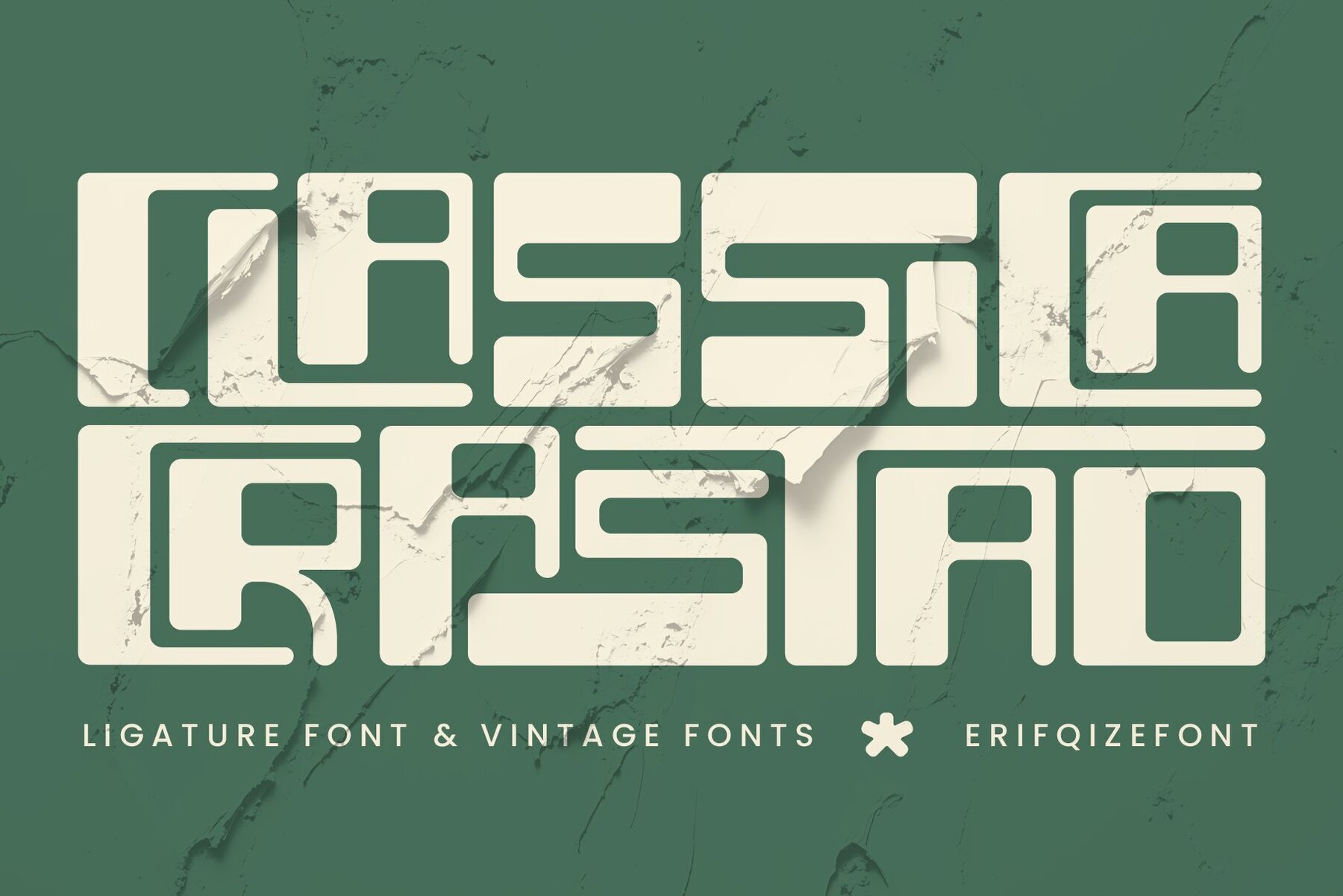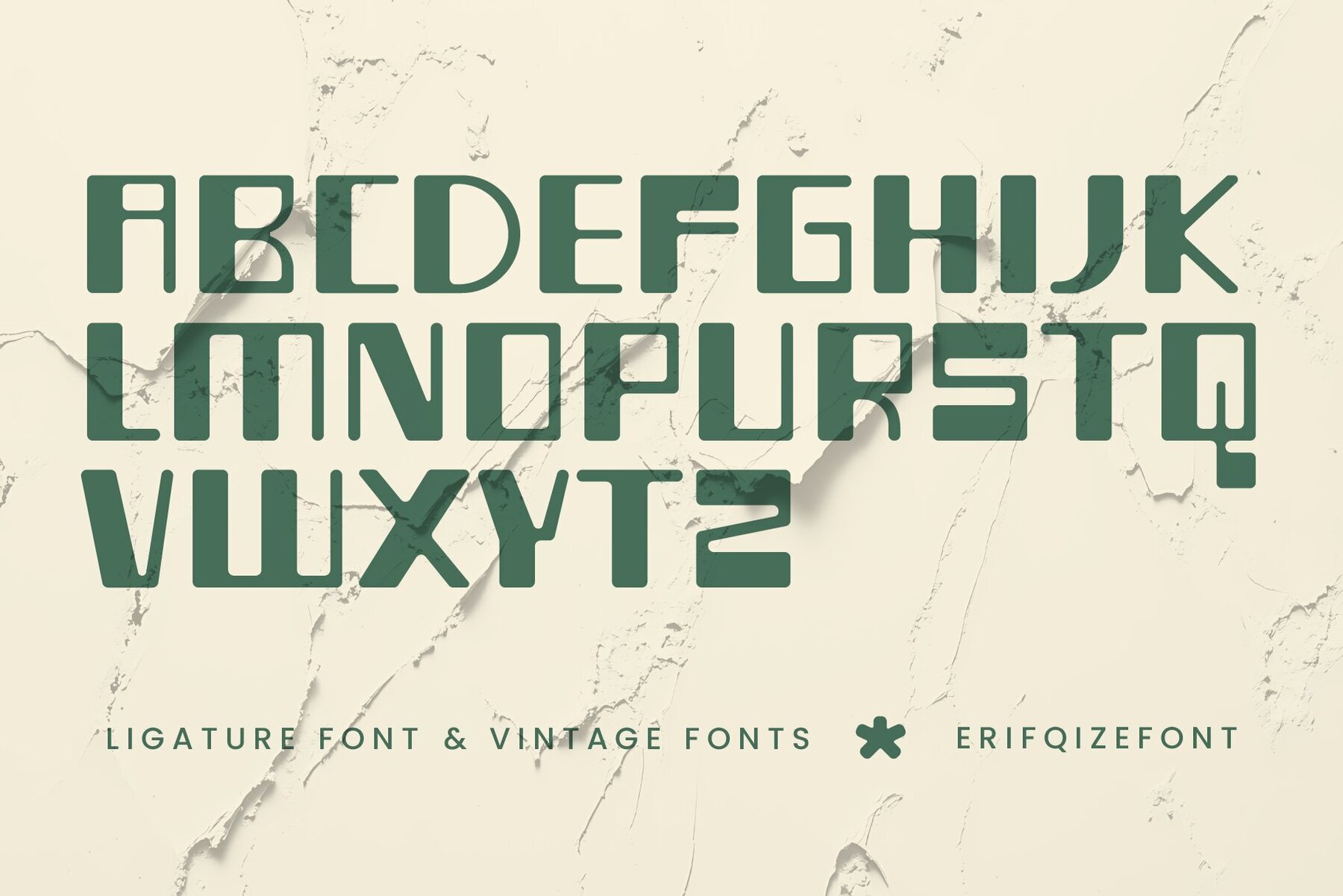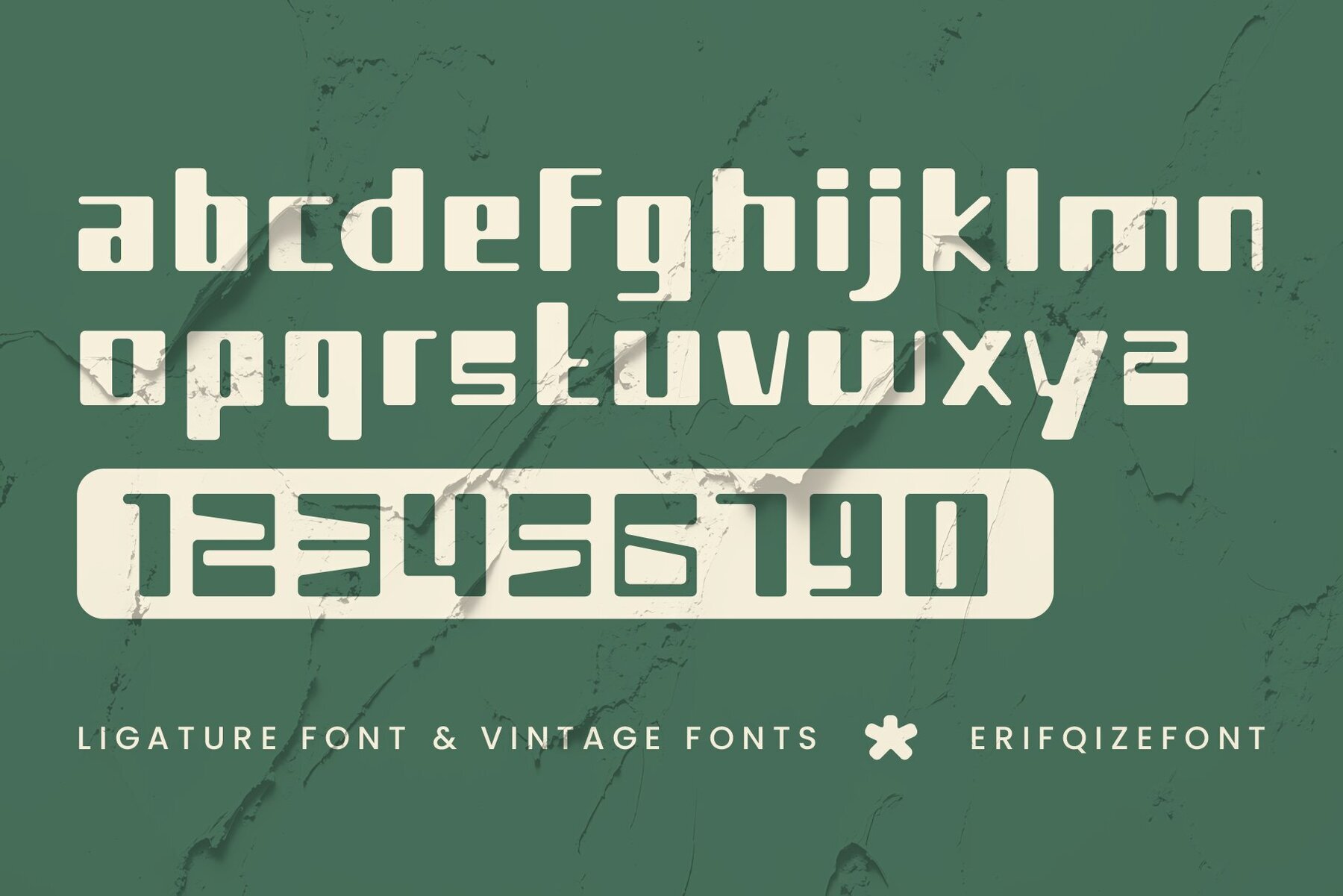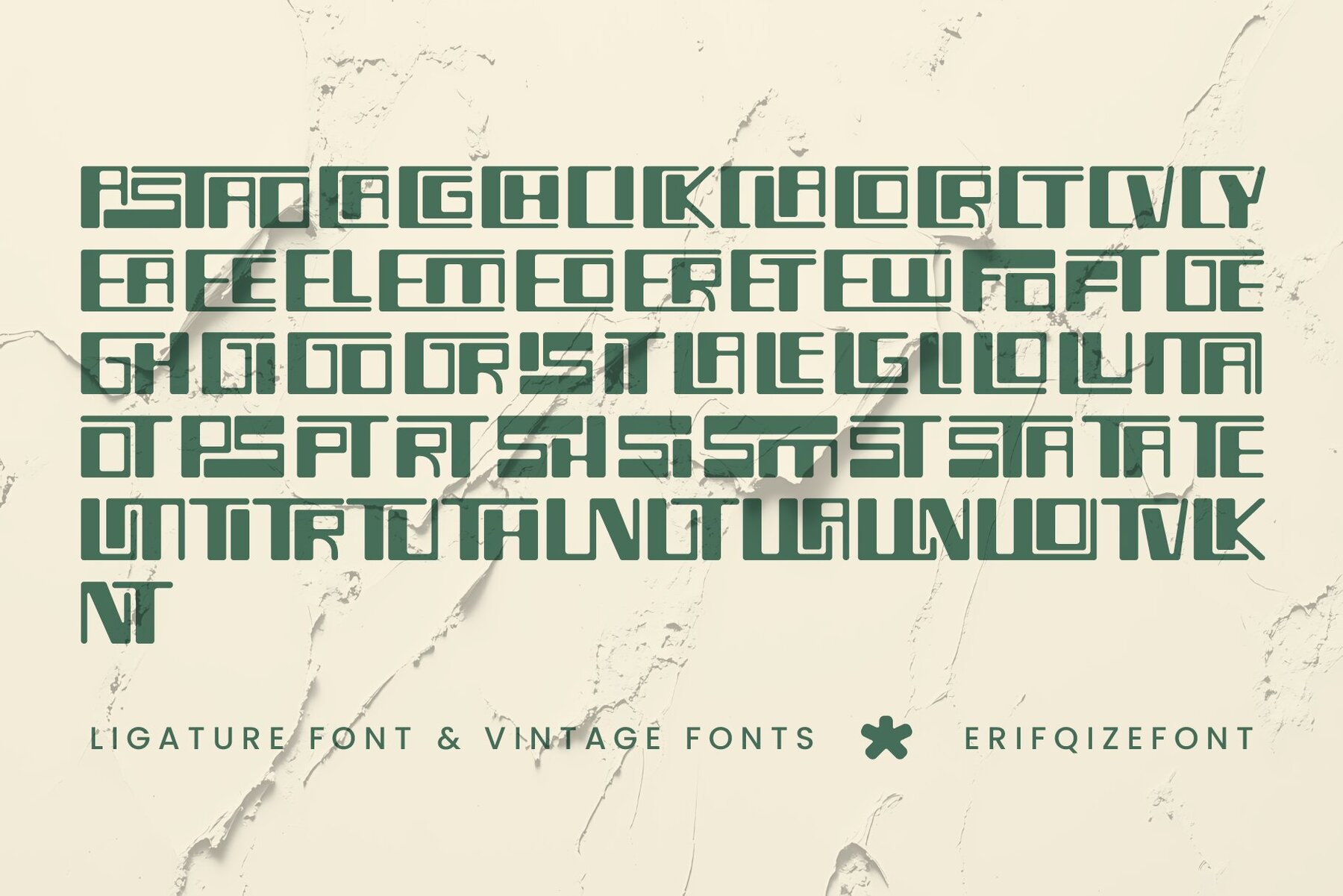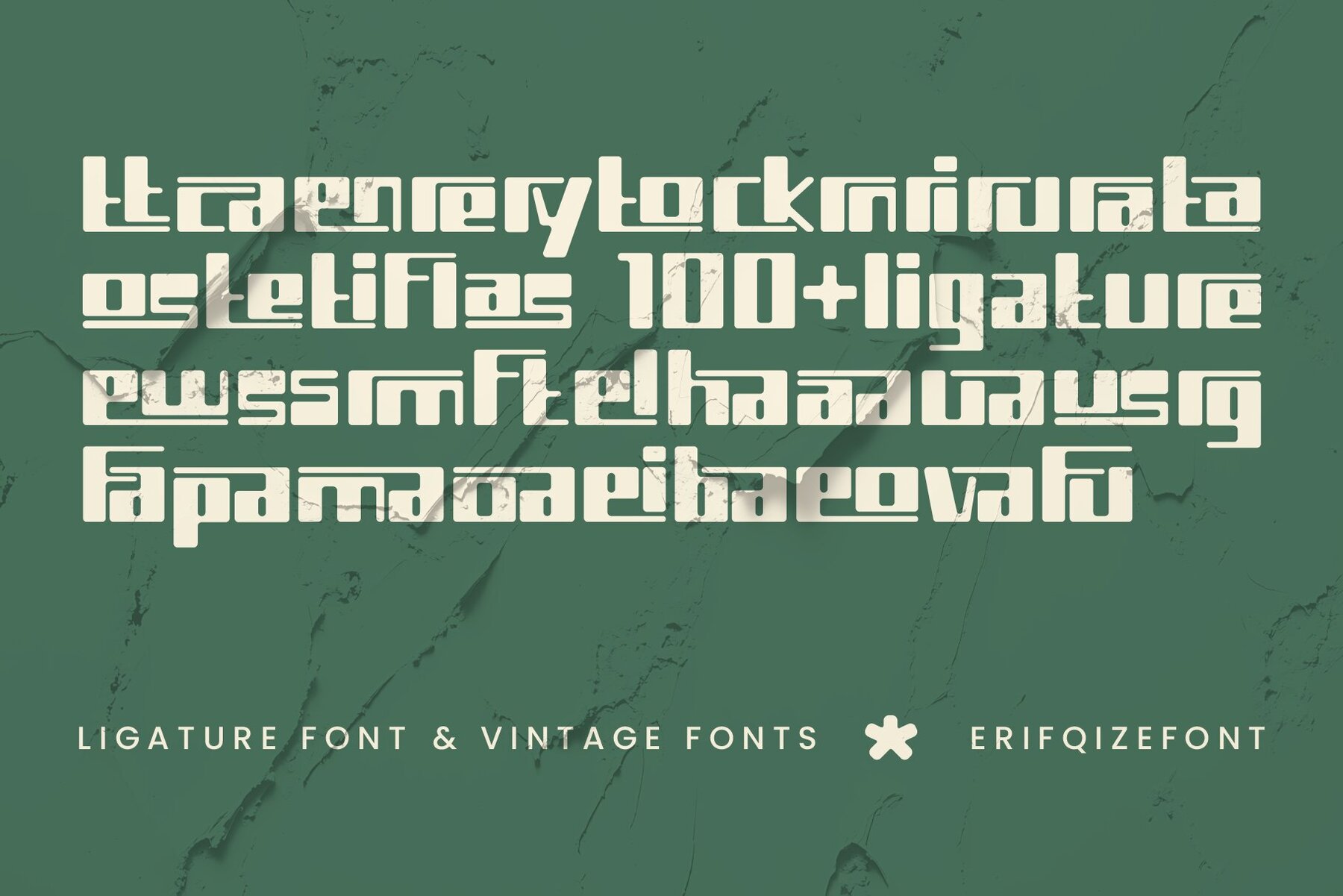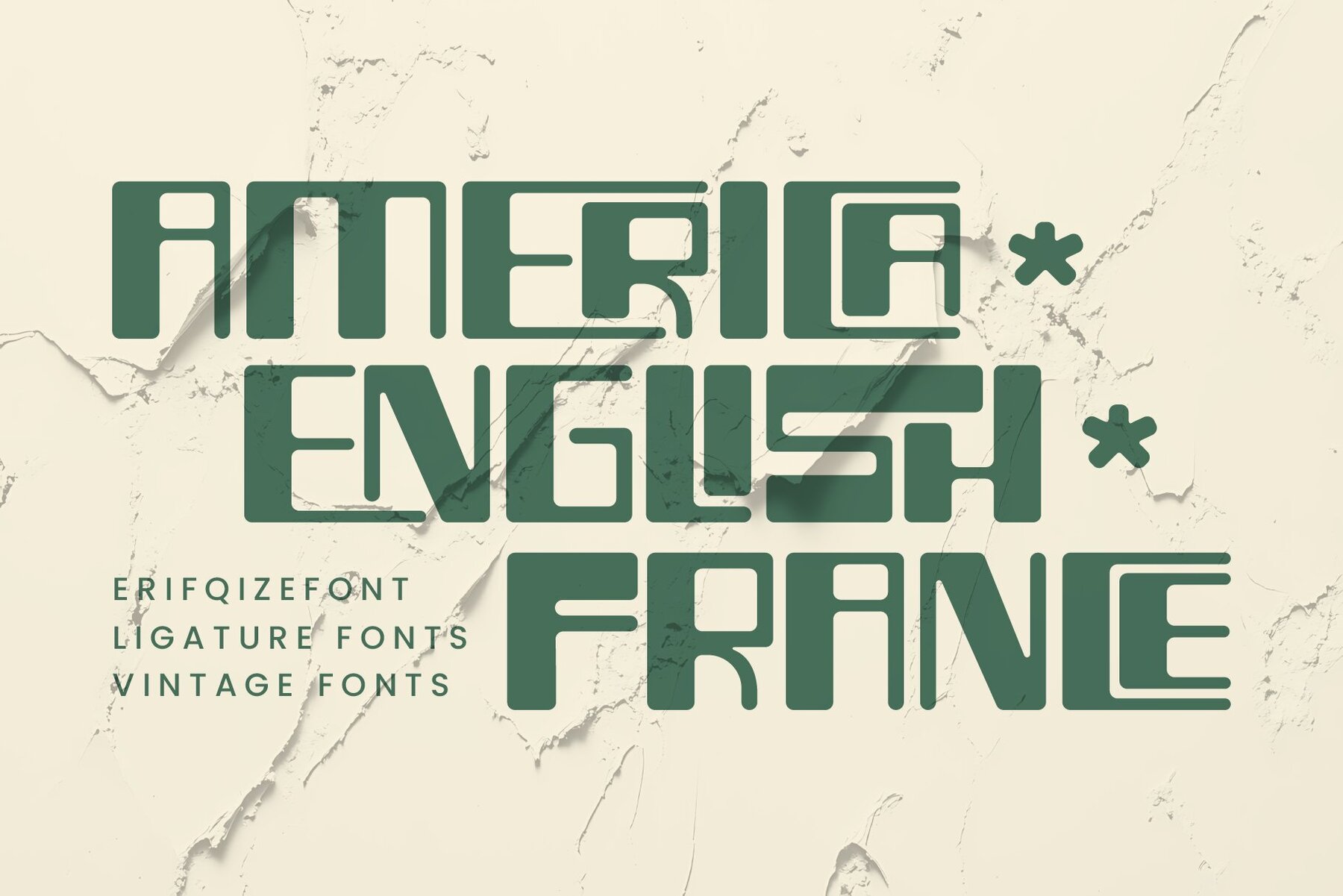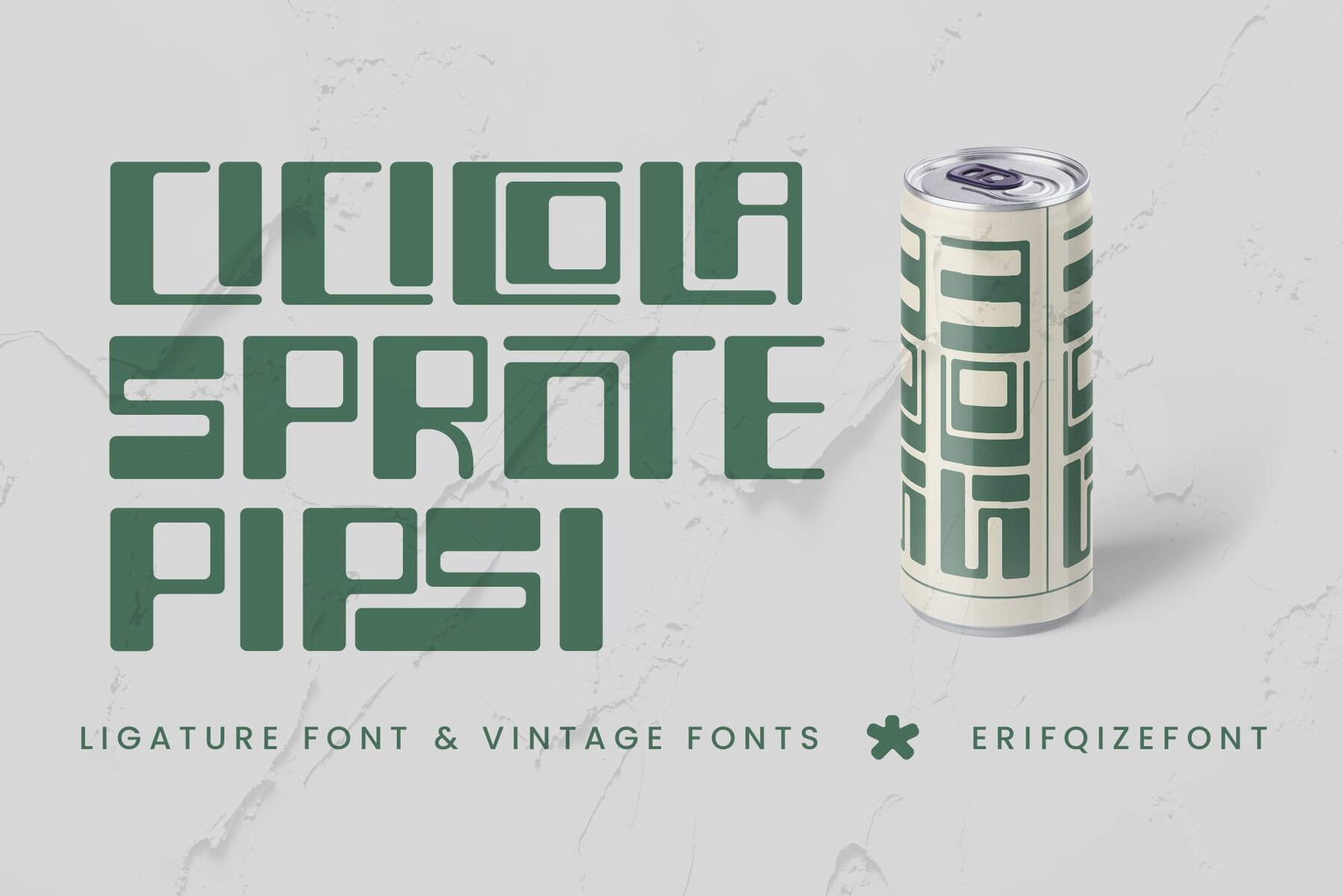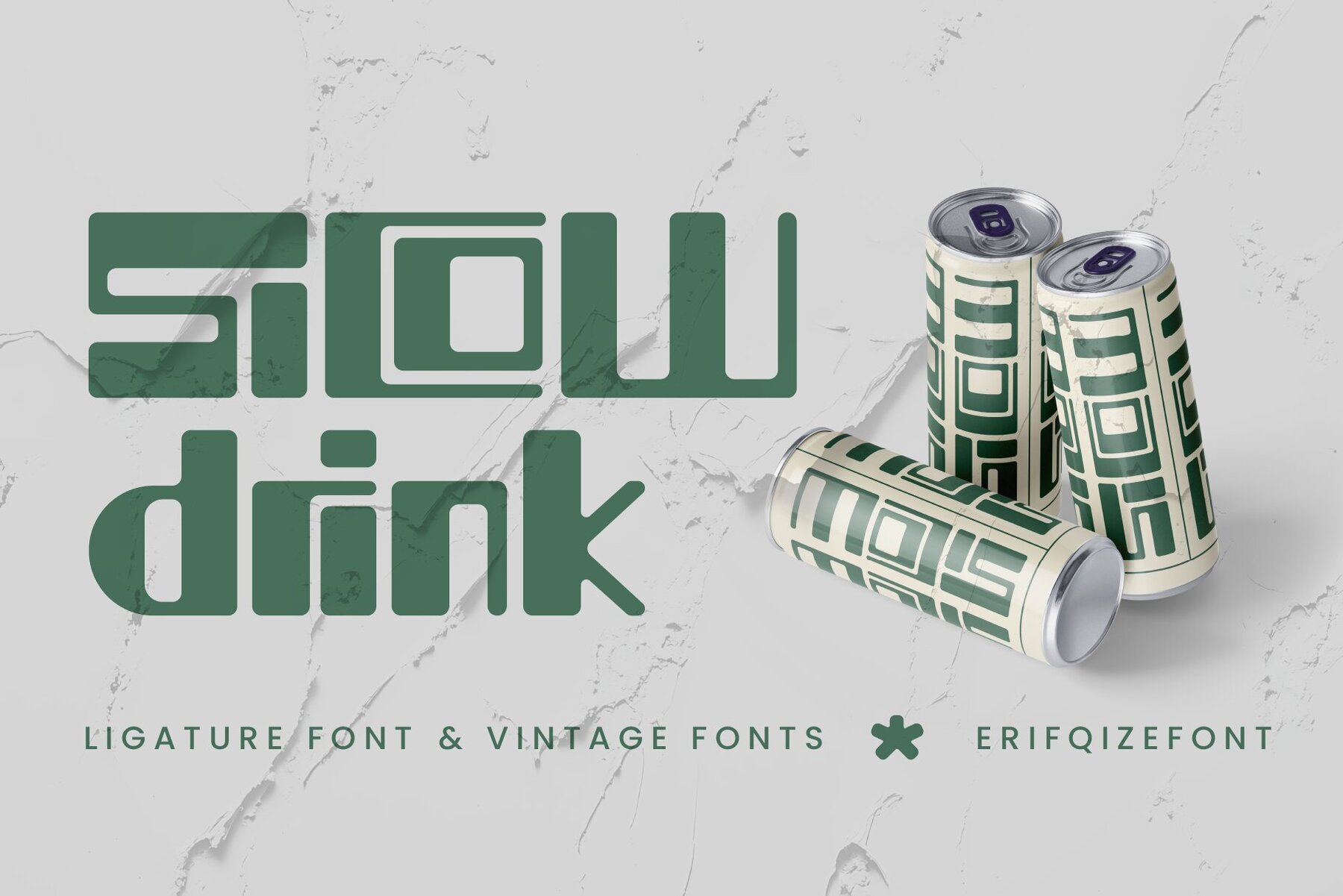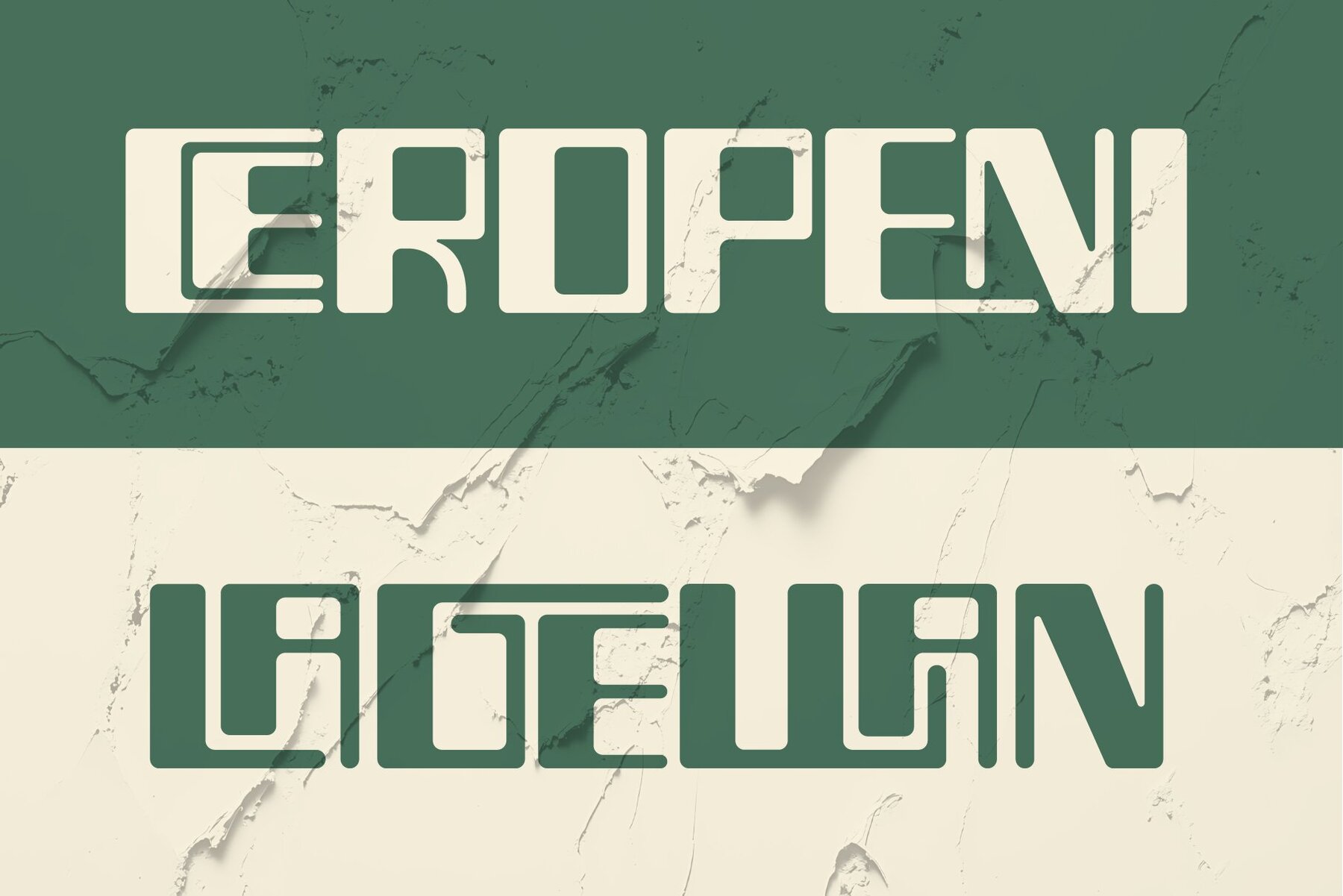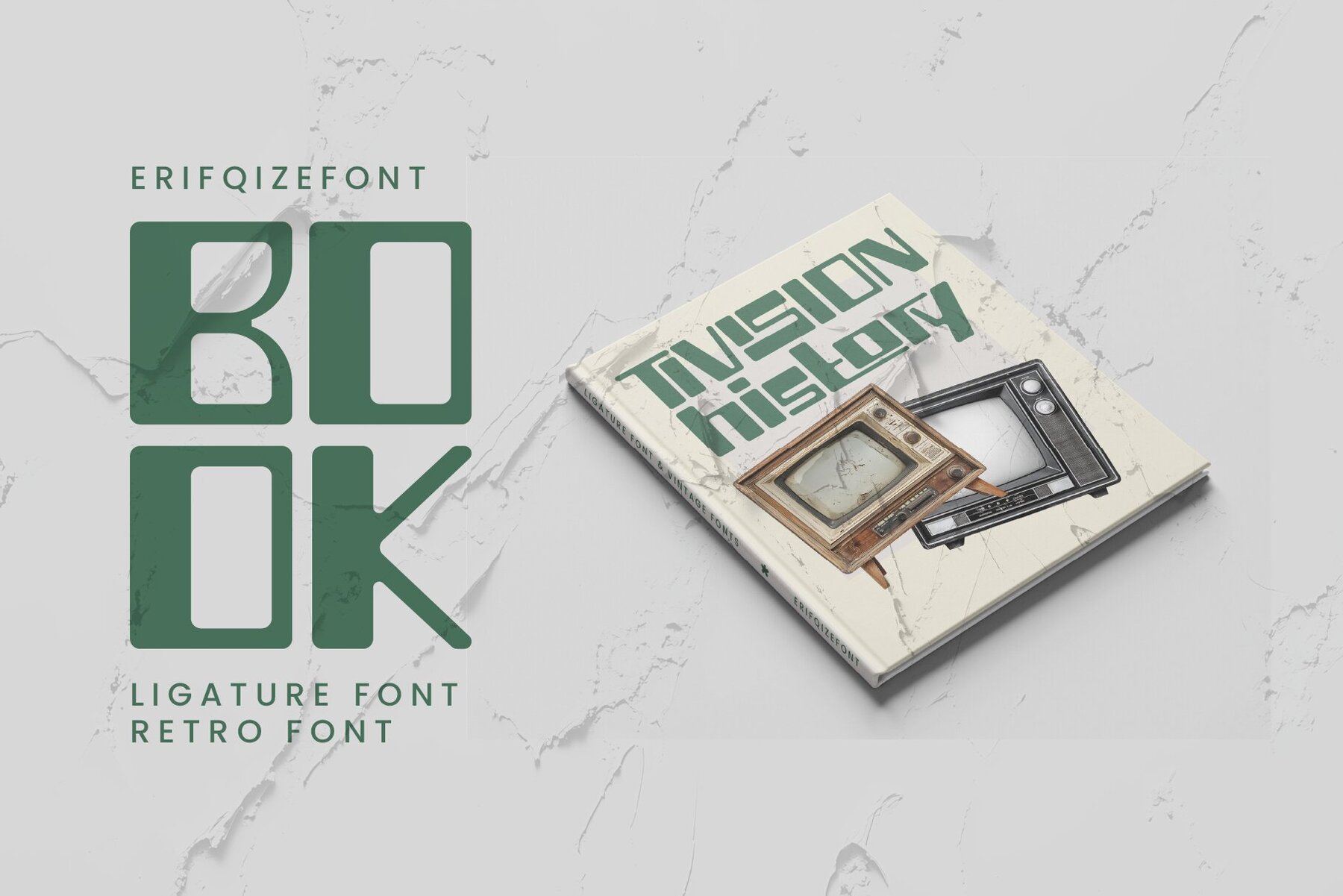
Classica Crastao Font
Classica Crastao
Classica Crastao is a bold, versatile sans serif font that artfully combines classic vintage charm with contemporary functionality. Its rounded corners and meticulously crafted letterforms lend it a unique, timeless quality, making it ideal for both retro and modern design projects. Bring a touch of vintage sophistication to your next project with Classica Crastao.Classica Crastao – A Timeless Vintage Bold Sans Serif
With over 100 ligatures for both uppercase and lowercase characters, Classica Crastao enables the creation of smooth, elegant, and visually striking typography. This font excels in applications such as branding, logos, headlines, or editorial design, providing a strong visual impact with its refined character.Features